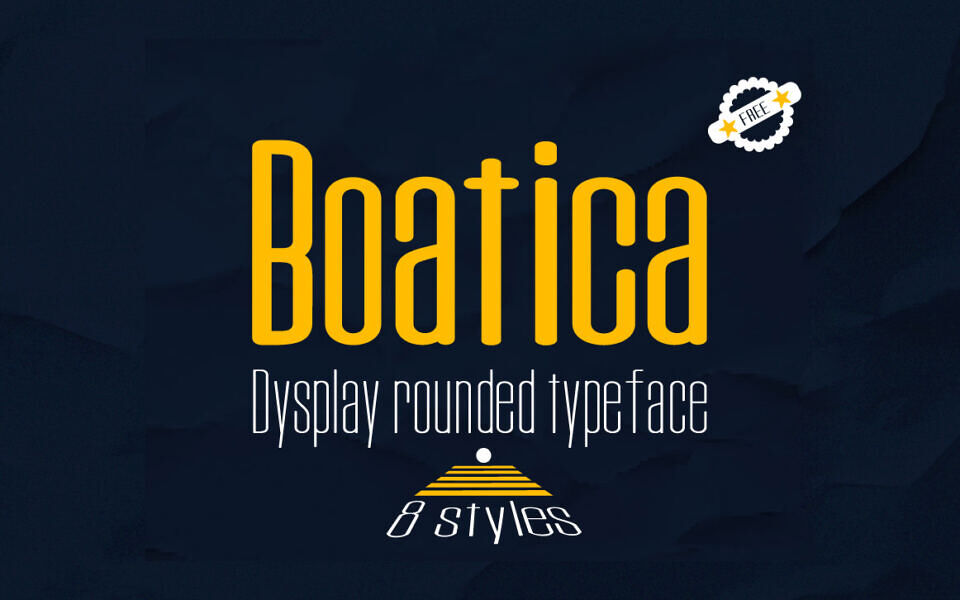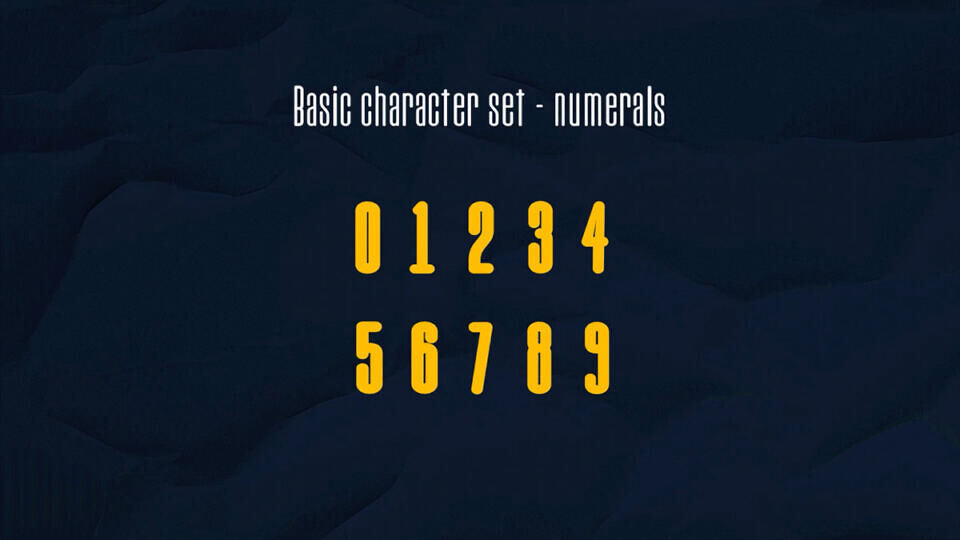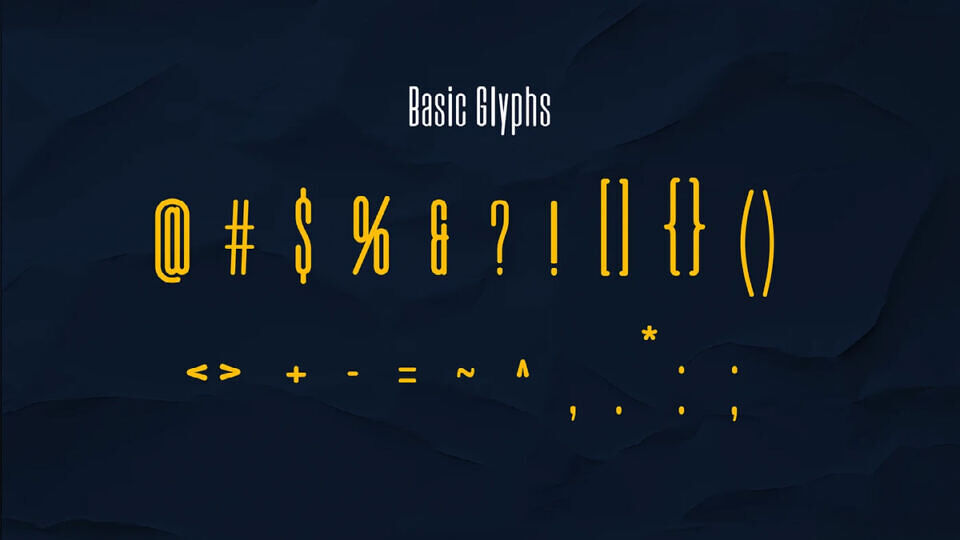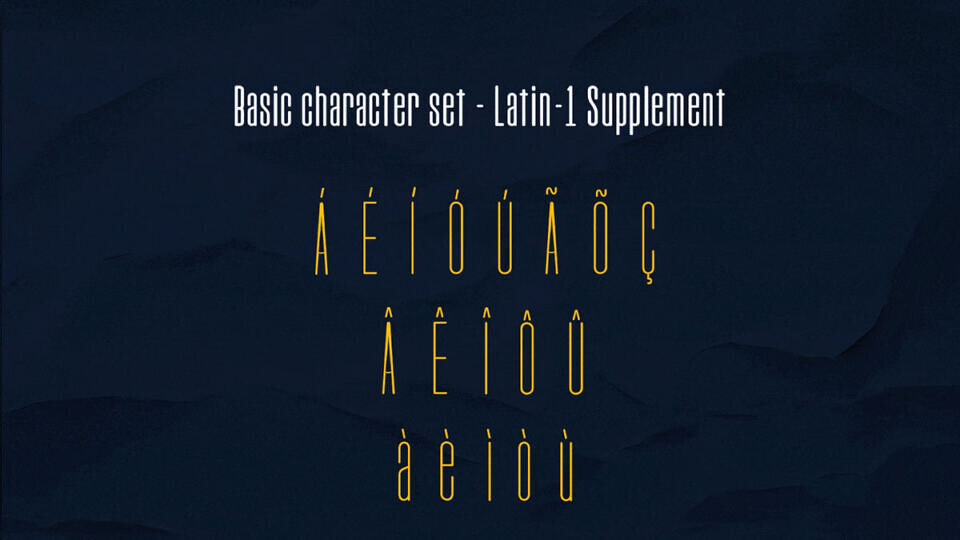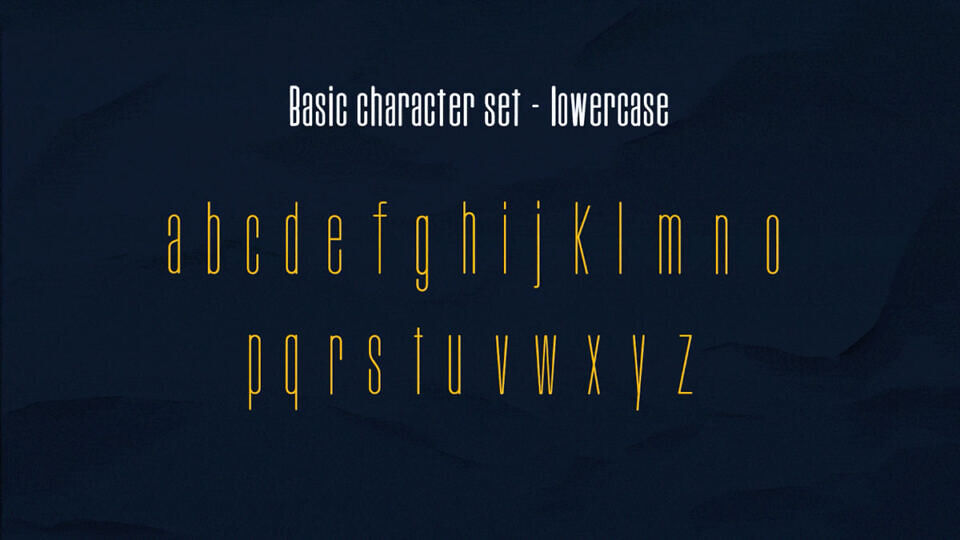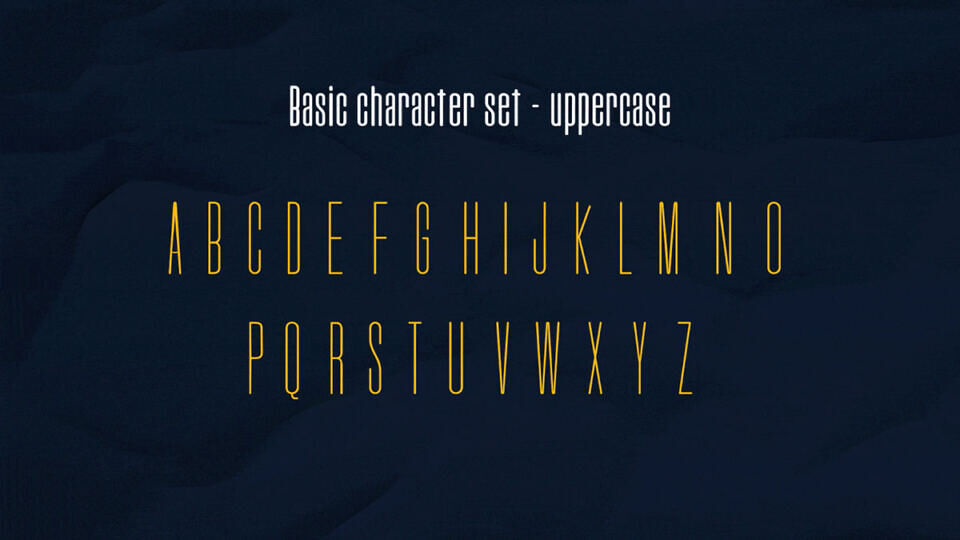
Boatica is a bold and personality-filled display font, perfect for those looking to make an impact at first glance. With soft curves, rounded corners, and a striking presence, it combines modernity and charm in every letter.